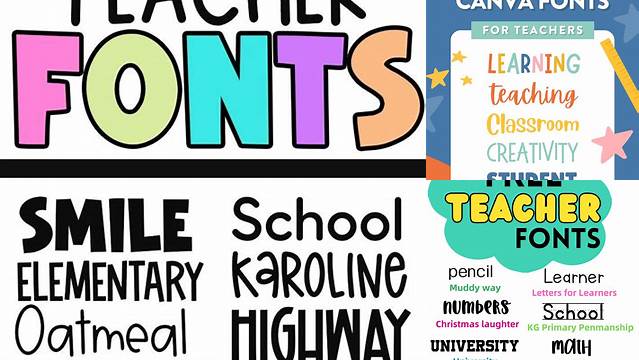
Teacher Fonts: A Guide To Engaging Classroom Design
Hey everyone! Let's dive into the awesome world of teacher fonts! Choosing the right fonts can seriously level up your classroom materials, making them more engaging and accessible for your students. We're going to explore some fantastic font options, how to use them effectively, and why they're so crucial for creating a vibrant learning environment. Ready to make your lessons pop? Let's go!
Why Teacher Fonts Matter
Alright, so why are teacher fonts such a big deal? Well, think about it this way: the font you choose is like the voice of your lesson. It sets the tone, grabs attention, and can even help students understand information better. Picking the wrong font is like whispering when you need to shout – it just doesn’t work! Good teacher fonts are not just about aesthetics; they’re about creating a learning experience that's both visually appealing and easy to understand. This is especially important for young learners who are still developing their reading skills. A clear, legible font can make all the difference in helping them decode words and grasp concepts. Imagine trying to read a textbook written in a super fancy, swirly font – it's a headache, right? That's why choosing the right font is so essential for creating educational materials that are user-friendly and effective. It's all about making learning as smooth and enjoyable as possible. The right fonts can also make your classroom materials more inclusive. Consider students with dyslexia or other visual processing challenges. Some fonts are specifically designed to be more accessible for these students, making it easier for them to read and engage with the content. So, choosing the right font is a key way to support every student in your classroom. It’s about creating a classroom where everyone feels welcome and empowered to learn. It's not just about the font itself, but also about the message you're sending. When you use a font that's well-chosen and thoughtfully applied, you're telling your students that you care about their learning experience. You're showing them that you've put in the effort to create materials that are easy to read, visually appealing, and designed to help them succeed. This attention to detail can boost student morale and make them more excited to learn. It's a small thing, but it can have a big impact.
Benefits of Using the Right Fonts
- Improved Readability: Fonts specifically designed for educational purposes are often clearer and easier to read, especially for young learners. This means less strain on their eyes and more focus on learning. It's a win-win! When you choose the right fonts, you're essentially making your lessons more accessible. Imagine trying to read a book with tiny, cramped letters. It's exhausting, right? The right font ensures that every student, regardless of their reading level or visual abilities, can easily read and understand the text. This leads to better comprehension and a more enjoyable learning experience. Choosing fonts with clear letter shapes and ample spacing between letters and words minimizes the chances of confusion. This also helps with visual fatigue. It reduces eye strain and makes it easier for students to stay focused on the content. It’s about creating materials that are as user-friendly as possible, so students can concentrate on learning rather than struggling to decipher the text.
- Increased Engagement: Eye-catching fonts can make your materials more interesting and grab students’ attention. This is especially important for subjects that might not be naturally exciting for everyone. Let's be honest, some subjects can be a little… well, boring. But the right fonts can turn those yawn-inducing lessons into something fun and engaging. Think of it like this: a great font is like the perfect soundtrack to a movie – it sets the mood and draws you in. Similarly, eye-catching fonts can make your lessons more memorable and fun. They add personality and flair to your materials, making them visually appealing and exciting for students. When students are engaged, they're more likely to pay attention, participate in class, and retain the information. It's like magic – the right font can transform a dull lesson into an adventure. The goal is to create materials that students are excited to interact with. When students are interested in the materials, they're more likely to be active participants in their own learning. They'll ask questions, share their thoughts, and be more likely to remember the information. You can create a classroom environment where learning is exciting and enjoyable for everyone. It’s about making the learning experience as positive and stimulating as possible.
- Enhanced Comprehension: Fonts that are easy to read and well-organized contribute to better understanding. When students don’t have to struggle with the text, they can focus on what they're learning. The right font makes sure that your students spend less time deciphering words and more time grasping the meaning behind them. Think of it like this: if the letters are clear and easy to read, the brain can focus on understanding the ideas presented. When students don't have to work hard to figure out the words, their brains can concentrate on the actual information. This leads to deeper comprehension and a better grasp of the material. It’s about removing obstacles to learning. When the font is clear and legible, it helps to minimize distractions and enhance focus. It’s not just about reading; it’s about understanding and remembering the information. When students can read easily, they're more likely to retain what they've learned, making it easier for them to apply the knowledge in the future. Choose fonts that are easy to read and suitable for the age group. You want to create materials that are visually clean and easy to understand. It helps to create a more positive learning experience for everyone involved.
Top Teacher Fonts for Classroom Use
Alright, here are some top picks for teacher fonts that you should absolutely check out. These fonts are not only clear and readable but also add a bit of personality to your classroom materials. Let’s take a closer look at some of the best fonts. When it comes to choosing fonts for your classroom, you want to pick options that are suitable for different ages and learning styles. Each font has unique characteristics that can enhance the educational experience. Keep in mind that the best font choice will depend on the specific needs of your students and the type of materials you're creating. The beauty of it is that there are tons of great options out there, and you can mix and match to create materials that are both engaging and effective. Whether you're creating worksheets, presentations, or posters, the right font can make a huge difference in how well your students interact with the material. It's about making sure your materials are not only easy to read but also fun to look at. Choosing fonts is an art form that's all about balancing readability, personality, and the needs of your students.
Best Fonts for Readability
- Helvetica: This is a classic, and for good reason! It’s super clean and easy to read. Perfect for all sorts of materials, from worksheets to posters. Helvetica is a timeless choice, and its clean, sans-serif design makes it a favorite among educators. It's like the trusty friend that always comes through. Because it's simple and straightforward, it's incredibly readable, and your students won’t have any trouble deciphering the text. It's a great choice for creating handouts, worksheets, and any other material where clarity is key. One of the reasons Helvetica is so popular is its versatility. It can be used in a variety of contexts and is suitable for all age groups. It's a workhorse that provides consistent, reliable readability. It’s an excellent all-around font that won’t disappoint. It's also a good idea to use it when you want a clean, modern look. It’s simple, yet effective. It's a fantastic option if you want to use a font that is classic and effective.
- Arial: Another fantastic sans-serif font that's similar to Helvetica. It’s easy on the eyes and great for younger students. It's another versatile font that’s both simple and effective. It’s very similar to Helvetica but might be a bit more familiar to students and educators. It offers excellent readability and a clean look. It’s a reliable choice for any educational materials. It's an excellent choice for beginners. Arial is known for its clear and straightforward letterforms. That makes it easy for students to distinguish between the different letters. When students are just starting to learn to read, this can make a big difference. It reduces the potential for confusion and makes the learning process more enjoyable. Because it's so simple, Arial is a great choice for any age group. It's a reliable font that's suitable for various educational materials, including worksheets, presentations, and even classroom signs. Arial is a font that will meet your needs. It's a fantastic choice for any educator looking to create materials that are both clear and easy to read.
- Comic Sans (with caution!): Okay, hear me out! Comic Sans gets a bad rap, but it can actually be useful for younger students. Just use it sparingly, and make sure it’s not the only font you’re using. Comic Sans is often a controversial font choice, but it has a place in the classroom. It can be a good option for young children. It's like a fun, friendly voice that helps make reading less intimidating. It's informal and playful, and it can make learning feel less like a chore. However, there are a few things to keep in mind. It’s essential to use Comic Sans judiciously and in the right context. It’s best used for younger students or in situations where you want to create a casual, informal tone. It's not a font you would use in a research paper or formal document. You want to use it in conjunction with other fonts to add some variety to your materials. Try to use it sparingly to avoid making it the only font you use. It’s a great choice for activities and crafts. Remember to use Comic Sans strategically and always prioritize the readability of your materials.
Fonts with a Playful Touch
- KG Primary Penmanship: This font mimics handwriting, which can be great for younger kids learning to write. It makes the materials feel more friendly. This font is perfect for creating materials that feel less like a formal lesson and more like a fun activity. It's like having a friendly pen pal guiding the students through their learning journey. The font is designed to look like handwriting. That can make the learning process feel more personal and engaging, especially for young children. This font is an excellent choice for creating worksheets. It looks like the students' handwriting. It’s perfect for creating personalized worksheets, activity sheets, and any materials that you want to feel more interactive and engaging. It's a great way to make the materials feel more approachable and less intimidating for students. It can also serve as a fun reminder that learning is a personal and unique journey. Make sure you select the font size. You want to ensure that the letters are clear and legible for everyone.
- Bubble Letters: These are just fun! Great for headings and titles to grab attention. Think of this font as a splash of color and excitement. Bubble letters are guaranteed to grab students’ attention and make your materials feel more playful. They’re a great way to draw attention to titles, headings, and other important information. It makes your materials more visually interesting and helps to capture students’ imagination. These letters are perfect for creating posters, banners, and other classroom decorations. They can also be used in worksheets and activities to add a sense of fun and creativity. Whether you're celebrating a special event or just trying to make your lessons more exciting, bubble letters are a fantastic choice. It's like adding a bit of sunshine to your classroom. Remember to use them strategically. It's also a great idea to consider the color and size of your letters. You want to make sure they are legible and easy to see. They add a touch of joy and playfulness to any educational setting.
- Schoolbell: This font adds a whimsical, handwritten feel that’s perfect for creative projects and posters. Schoolbell is like a friendly, welcoming sign that invites students to explore and discover. It adds a touch of personality to the materials. It's great for creative projects, bulletin boards, and any other materials that you want to make feel more inviting. This font is great for adding a personal touch to your materials. It makes them feel less like a generic handout and more like a special invitation. It is perfect for creating posters, banners, and other classroom decorations. It can also be used in worksheets and activities to make them more visually appealing and fun. When you add Schoolbell to your educational materials, you're essentially giving them a unique voice. It's about bringing your personality into your teaching and creating a learning environment. It's like a warm hug, making your students feel welcome. Remember to use it in the right context. You can use it to add a unique look. It is easy to read and easy on the eyes. This font is an excellent choice if you want to add a bit of personality to your materials.
Tips for Using Teacher Fonts Effectively
Alright, so you've got your fonts picked out. Now, how do you actually use them effectively? It’s not just about picking the right font; it's also about using them in a way that enhances learning. Let's get some tips to make your materials even more awesome. It’s about balancing creativity and practicality to create materials that are both engaging and effective. Whether you're a seasoned educator or just starting out, these tips can help you optimize your font choices for maximum impact. These tips will help you create materials that will capture the attention of your students and make learning fun. The right techniques can improve the visual appeal and readability of your materials. You want to set yourself up for success. It’s all about making your materials look good and work effectively. It's not rocket science, but a few key strategies can make a big difference.
Prioritize Readability
- Font Size Matters: Make sure your font size is large enough for all students to read comfortably. Consider the age group and the distance from which they will be reading. No one wants to squint to read. It's simple, but it makes a big difference! No matter how cool the font is, if the text is too small, it's a no-go. You want your students to be able to easily read the text, regardless of where they are sitting in the classroom. To ensure maximum readability, consider your students' ages, visual abilities, and the type of material you are creating. Make sure the font size is big enough for all students to read comfortably. If you're creating materials for young children, aim for a font size that is bigger. This will make it easier for them to read. Also, think about where your students will be reading. If the materials are used for a presentation, use a bigger font size, too. It's important to use an appropriate font size. It’s a simple change that can make a huge difference in the learning experience. Prioritizing readability is all about making sure that your students can engage with the material. It's about creating materials that are easy to read and free of distractions. It ensures that everyone has equal access to information.
- Spacing is Key: Use ample spacing between letters, words, and lines. This helps prevent the text from looking cluttered and makes it easier on the eyes. Proper spacing is important for enhancing the readability of your materials. Make sure the space between letters, words, and lines is adequate. Avoid cramming words together, as that makes it difficult for students to read. Ample spacing reduces eye strain and makes your materials more visually appealing. When the text is easy to read, students can understand the content more quickly. Spacing plays a key role in organizing and highlighting information. By using strategic spacing, you can guide your students’ eyes and improve their understanding. In addition to visual clarity, spacing also plays a role in creating a positive learning experience. When the materials are well-organized and visually appealing, students are more likely to feel positive. They will also be more engaged with the content. Spacing is one of the simplest things that can affect the readability of your materials.
- Use Contrasting Colors: Ensure there's enough contrast between the font color and the background. Dark text on a light background (or vice versa) is best. Make sure the colors you use are not only visually appealing but also easy to read. You want to ensure that the font color contrasts sharply with the background. It makes the text stand out and is easier to read. Dark text on a light background (and vice versa) is usually the best. Avoid using similar colors for text and background, as it can make the text blend in. It is important to consider the needs of students who may have visual impairments. The right color contrast can greatly impact the learning experience. The right color combinations can create a more effective learning experience. It helps students focus on the content without struggling to decipher the text. It’s about making the text pop! Make sure the text is easy to read and that it enhances the overall design of your materials.
Consistency is Your Friend
- Stick to a Few Fonts: Don’t go font-crazy! Using too many fonts can be distracting. Stick to a consistent font palette for a polished look. Consistency is the key to creating visually appealing materials. Overusing fonts can be distracting, confusing, and overwhelming. Try to stick to just a few fonts. Make sure these fonts complement each other. It will help create a unified look that enhances the materials. When you maintain consistency, you are creating a more professional and organized aesthetic. It will make your materials easier to read and more enjoyable to interact with. Think of your font choices as part of your brand. By using consistent fonts, you establish a visual identity. It helps students recognize and connect with your materials. It promotes visual harmony. It will make your materials more effective. It’s about creating a cohesive and attractive design that complements your content.
- Use Fonts Strategically: Reserve specific fonts for certain elements (headings, body text, etc.). This helps to organize information and guide the reader’s eye. Consider the information that you want to convey. Choose the right fonts and design elements to present it in a clear and organized manner. Use different fonts to help readers quickly identify important information. Use bolder fonts for headings and titles, and use simpler fonts for body text. Make sure the fonts complement each other and create a cohesive look. It is like creating a roadmap. You should use the fonts to guide your reader’s eye through the content. It helps in organizing the information and improving the overall clarity of your materials. It can significantly improve the readability of your materials and their overall impact on your students. Remember to choose the right fonts for the specific elements of your materials.
Know Your Audience
- Consider Age and Grade Level: Choose fonts that are appropriate for the age and reading level of your students. What works for kindergartners might not work for high schoolers. The most important thing is to choose the best fonts for your students. When choosing the font, consider factors such as age, reading level, and the subject matter. Choose fonts that are age-appropriate and easy to read. Remember that what works for young children might not work for older students. So, be careful to choose the right font. If you are teaching young children, consider using fonts that are simpler and more friendly. For older students, you can use more sophisticated fonts. Adjust your choices based on what will be most engaging. Think about what type of content you are creating. Choose fonts that complement the subject matter. Keep your students in mind. Ensure that your materials are both age-appropriate and engaging. You must prioritize clarity and effectiveness, and make sure the fonts meet the needs of the learners.
- Assess Student Needs: If you have students with specific reading needs (e.g., dyslexia), consider fonts that are designed to be more dyslexia-friendly. Think about whether there are any special requirements to accommodate students with specific needs. If you have students with dyslexia, you can consider using fonts. These fonts are specifically designed to be easier to read for individuals with dyslexia. This includes using fonts with unique letter shapes and generous spacing. If you have students who have visual impairments, you may need to increase the font size. Make sure there is enough contrast between the font and the background. By considering individual needs, you can create an inclusive learning environment. These considerations are essential for ensuring the materials are both accessible and effective for all students.
Where to Find Teacher Fonts
So, where do you actually get these awesome teacher fonts? Here are some great places to find free and paid fonts for your classroom materials. Getting the right fonts is easy when you know where to look. There are tons of options available to help you make your materials stand out. You'll find some great options. From free font websites to premium font bundles, there are options to fit every budget and style. Keep exploring and you can find the perfect font for any project. The options are endless, and the possibilities are exciting! It's like embarking on an adventure where you can unlock creativity. It is an opportunity to discover new favorites and transform your classroom materials. Embrace the variety, and remember that the best fonts are those that bring your vision to life.
Free Font Resources
- Google Fonts: A fantastic resource with a wide variety of free fonts. It's super easy to download and use. Google Fonts is a go-to resource for educators because it has tons of options. It's a treasure trove of free, high-quality fonts. You can easily browse, download, and use them in your materials. Google Fonts makes it easy to search by style, language, and popularity. There are many options to help you find the perfect fit for your projects. Google Fonts is a valuable resource for creating a diverse set of materials. It is a user-friendly experience that makes it easy to discover new fonts. It will help you elevate your educational materials.
- DaFont: Another great site with a massive collection of fonts. Just be sure to check the licensing before using them commercially. DaFont is a well-known platform. It provides a wide range of fonts. You can explore an incredible selection. From classic options to more whimsical styles, you'll find something that fits your needs. Keep in mind that some fonts may require a license. It's important to check the licensing information. You want to make sure you are using them in compliance with their terms of use. Take a moment to familiarize yourself with each font. The site has a great user interface. It's easy to find the perfect font for any of your projects. This is a good resource for those who are creative.
- Font Squirrel: This site offers a curated collection of high-quality, free fonts, and it’s easy to navigate. Font Squirrel is a carefully curated site. It offers a diverse collection of free fonts. It is an excellent resource for discovering beautiful and unique fonts. The site's user-friendly interface makes it easy to browse and download fonts. Each font is carefully selected for its quality and design. It’s like an online gallery, which offers a wide range of fonts that inspire your creativity. Whether you are creating educational resources or design projects, Font Squirrel is a great place to start.
Paid Font Options
- Creative Market: This is a marketplace with a huge selection of beautiful, professionally designed fonts. It is a great place to get fonts! Creative Market offers a wide variety of fonts. The fonts are designed by talented designers. It's a great spot to find fonts that fit your style. It's a platform with tons of fonts that you can choose from. From classic and modern fonts to handwritten styles, you will surely find the perfect font. Creative Market is perfect for those who have specific needs. It offers high-quality, professional-grade options. The platform provides a variety of fonts that elevate your projects.
- MyFonts: This site has an extensive library of fonts, including some exclusive designs. The site offers a vast collection of fonts from various designers. You are guaranteed to find a font that matches your vision. The range of options is designed to inspire and empower your creative journey. Whether you're searching for classic designs or modern trends, you can find it all. MyFonts also provides tools for searching and comparing fonts. This makes it easier to discover the perfect font for your needs. It's an amazing place to find the perfect font for your project. It is a fantastic place to bring your ideas to life.
- Font Bundles: These sites often offer font bundles at discounted prices, which can be a great deal. Font Bundles is a great resource. They often have exclusive deals and promotions. They're the perfect resource for those looking for affordable options. They provide access to diverse fonts without breaking the bank. You can explore a world of fonts. It's an opportunity to enhance your creativity without spending a fortune. They have many options to help you transform your educational materials. You can unlock your creativity with the right fonts.
Conclusion: Level Up Your Lessons
So, there you have it, folks! Teacher fonts are an essential tool for any educator looking to create engaging and effective classroom materials. By choosing the right fonts, you can improve readability, increase engagement, and enhance comprehension. Remember to prioritize readability, maintain consistency, and know your audience. With these tips and resources, you're well on your way to leveling up your lessons and making learning a whole lot more fun for your students! Happy font-hunting! And don't forget to experiment and have fun with it. Your creativity and the impact you can have on your students are unlimited. Go forth and create some amazing educational materials!